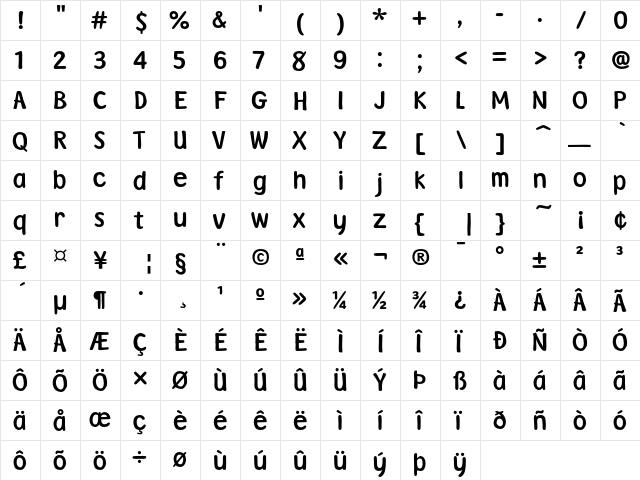
Fontoon Regular
Design Context for Fontoon Typeface
Fontoon is a composed and adaptable typeface that performs quietly and consistently across a wide range of design contexts.